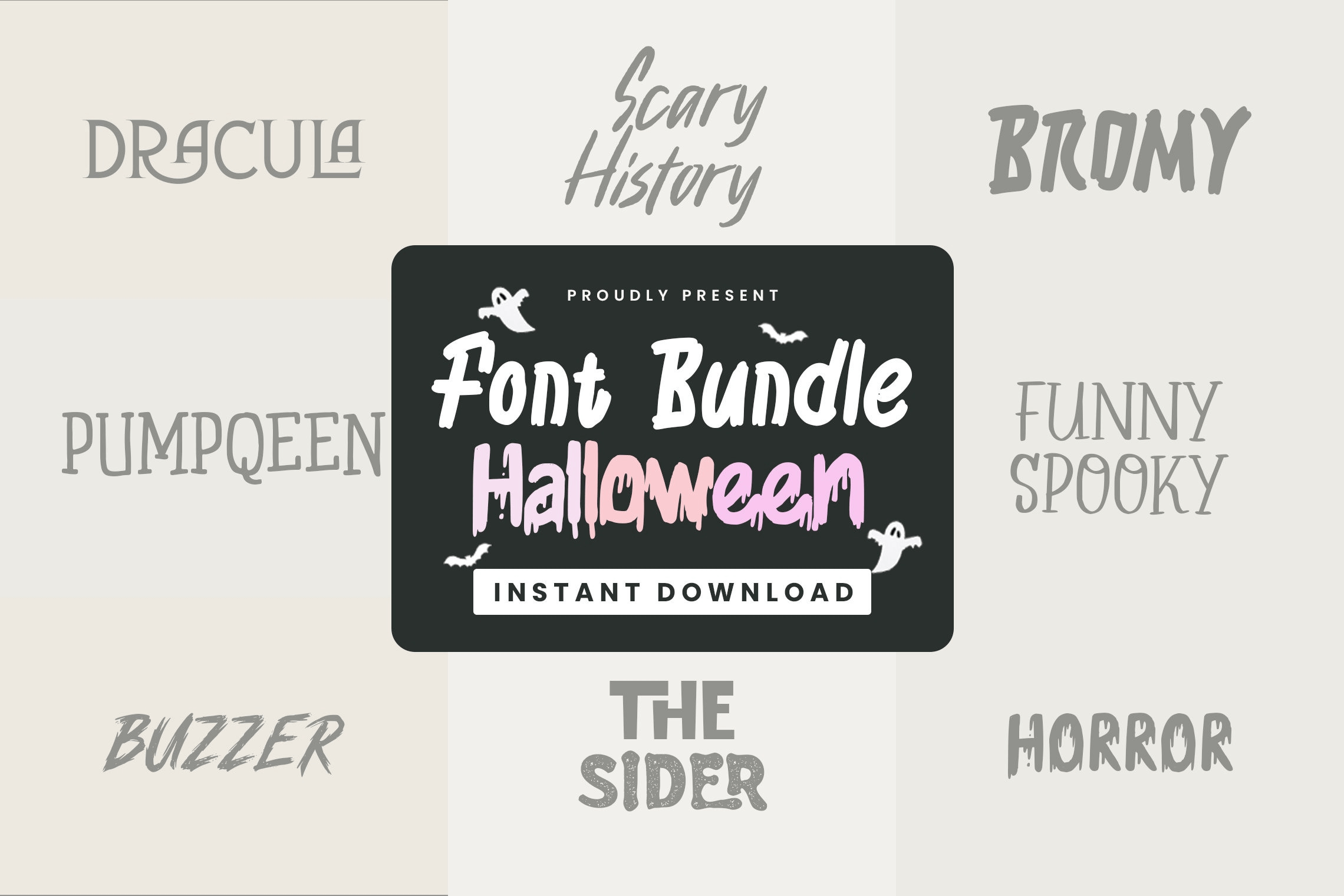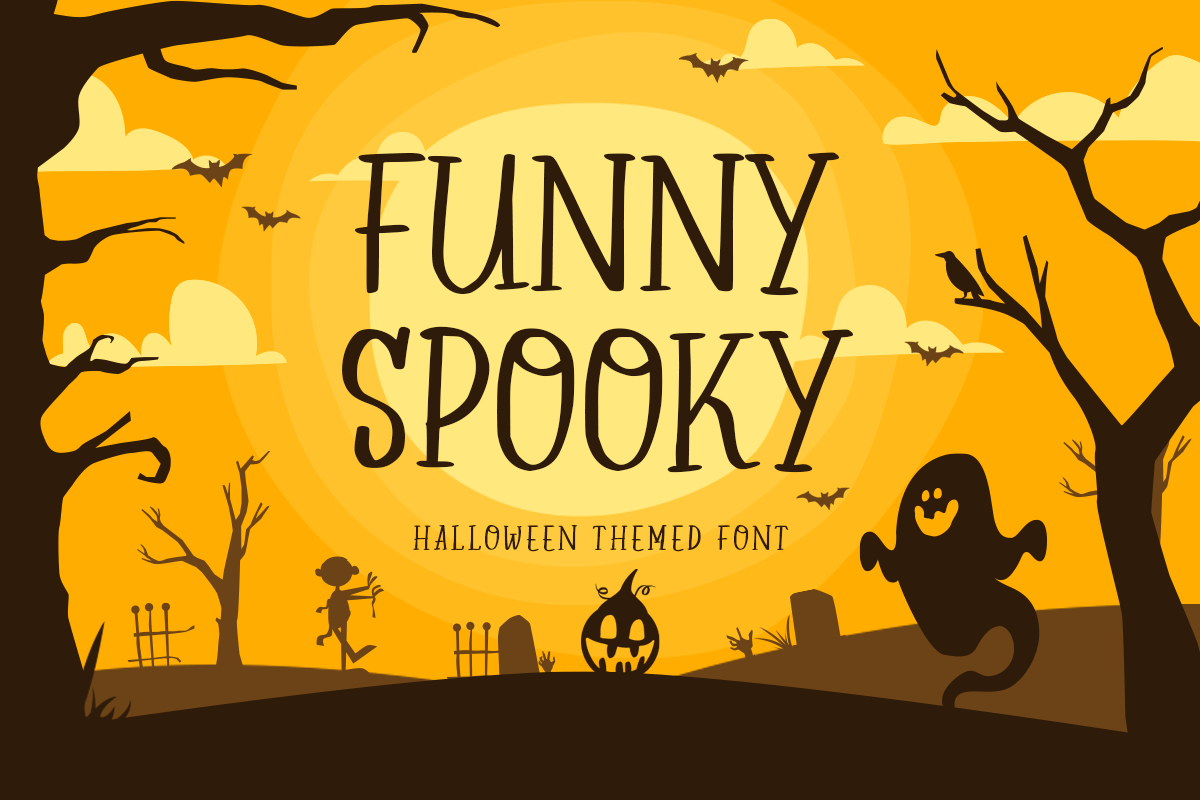
Halloween Fonts Bundle 8 in 1
Dive into the spirit of Halloween with our exclusive 8 in 1 Halloween Spooky Fonts Bundle! Crafted with care by graphic designers, this collection is a treasure trove for anyone looking to infuse their projects with a touch of Halloween magic. Whether you're designing haunting logos, bewitching invitations, or creepy event posters, our fonts are perfect for making a spine-tingling impact.
Variety of Styles: Features uppercase, lowercase, numerals, and punctuation.
Multilingual Support: Broaden your reach with our multilingual characters.
Perfect for Halloween: Ideal for creating eerie, witch-themed, and ghostly designs.
Bromy
Buzzer
Dracula
Funny Spooky
Horror
Pumpqeen
Scary History
The Sider
- Uppercase & Lowercase
- Number & Punctuation
- Multilingual Language
- Opentype Features
- PUA Encode
- Alternate Characters
- Ligature Collections